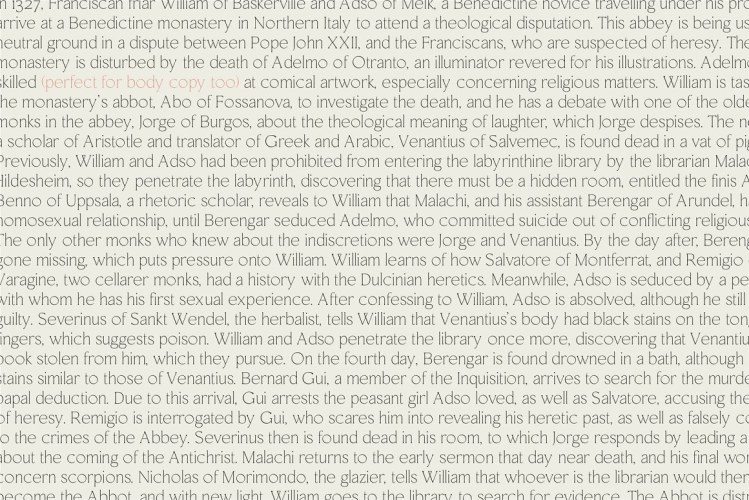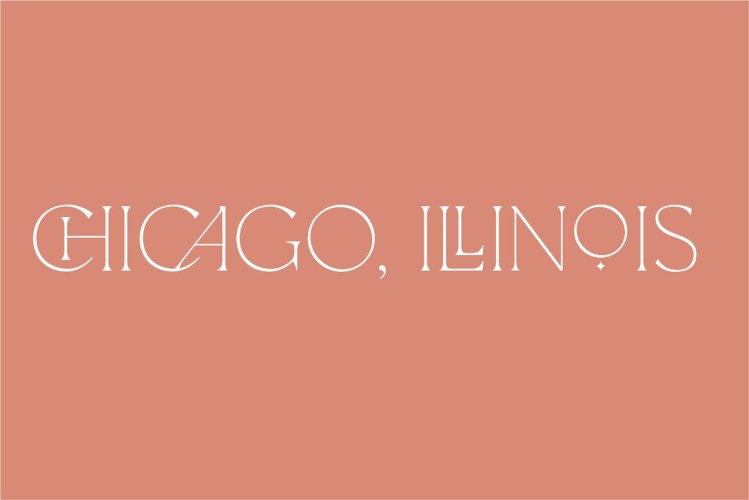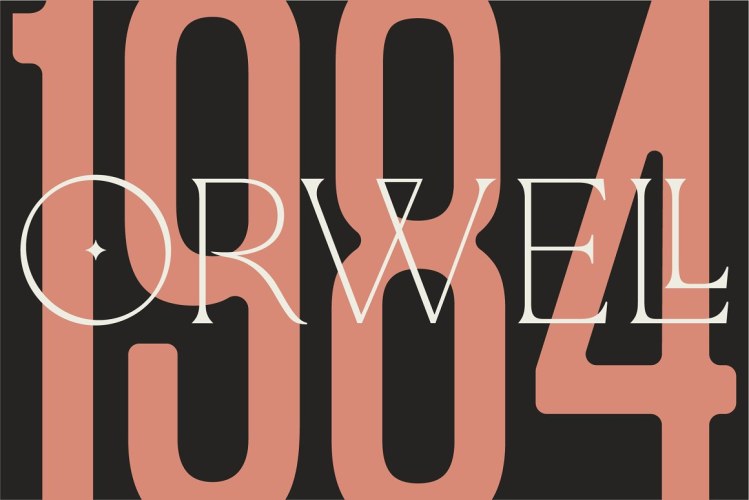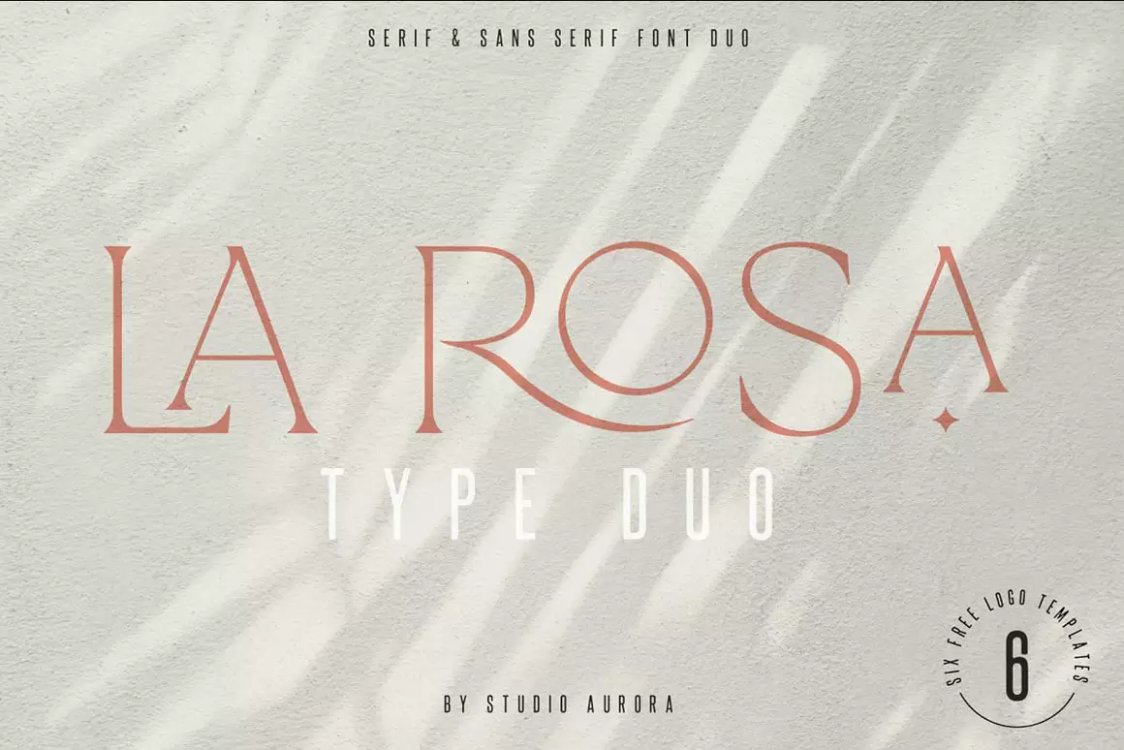
La Rosa – Elegant Summer Serif Font
La Rosa is a contemporary, elegant serif typeface, suitable for use in title design such as invitations, signboards, book titles, stationery designs, quotes, branding, logos, greeting cards, packaging designs, posters, and more. It comes with lowercase letters that are perfect for body copy in books or digitally on websites and apps.
La Rosa – Elegant Summer Serif Font is a Serif Fonts font that brings a professional and versatile look to your projects. La Rosa is a contemporary, elegant serif typeface, suitable for use in title design such as invitations, signboards, book titles, stationery designs, quotes, branding, logos, greeting cards, packaging designs, post.